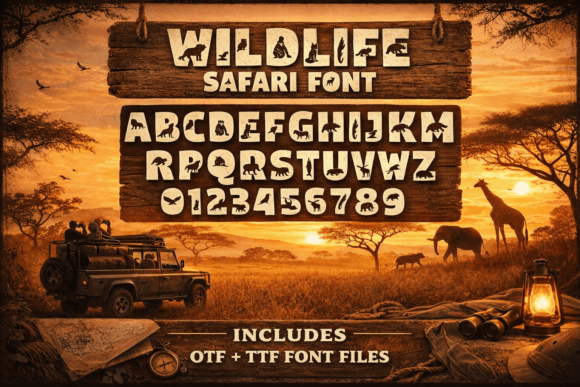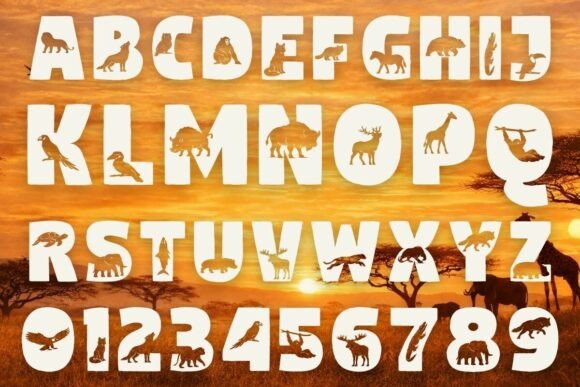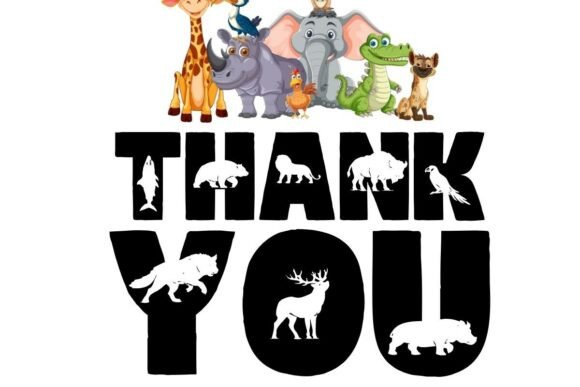
Introduction to Safari Friends Font
Do you remember the excitement of creating a craft project as a child, rummaging through your crayon box to find the perfect animal to bring your imagination to life? For designers, that same spark of creativity can be ignited with the right design resource. That’s where the Safari Friends Font comes in – a bold and playful typeface that brings the spirit of the wild to your designs.
With its unique wildlife silhouettes nestled inside every letter, this high-quality font is perfect for nature, safari, zoo, and jungle-themed projects. Whether you’re working on a free download for educational materials or a creative project for an adventure theme, the Safari Friends Font is an invaluable design resource that’s sure to delight both kids and adults alike.
- Designed with a fun, playful style, making it suitable for children’s educational materials, gaming projects, and other creative endeavors.
- Perfect for designers looking for a unique and eye-catching font to add a personal touch to their creative project.
Honest Review: Safari Friends Font
As a designer, I’m always on the lookout for unique and high-quality design resources to elevate my creative projects. The Safari Friends Font has caught my attention, and I’m excited to share my honest review with you.
- ✨ The font is incredibly cute and perfect for kids’ educational materials, party invitations, or any project that needs a playful touch.
- ✨ The transparent background option allows for seamless integration with other design elements, giving designers more flexibility with their designs.
However, I’ve noticed a few limitations:
- ⚠️ The font family is quite limited, with only a few styles and weights available. This might not be ideal for designers who need a more comprehensive font family for their project.
- ⚠️ The font doesn’t support a wide range of languages, which might be a concern for designers working on international projects.
Overall, I think the Safari Friends Font is a great addition to any designer’s toolkit, especially for creative projects that require a playful and whimsical touch. While it may have some limitations, its free download option and high-quality design make it a valuable resource for designers looking to add some fun to their work.
Tips for Getting the Most Out of the Font
Experiment with different font sizes and colors to create visual interest. Also, consider combining the Safari Friends Font with other fonts for a unique and creative look.
The Safari Friends Font is ideal for use in children’s book illustrations, educational materials, and fun designs for social media and marketing campaigns.